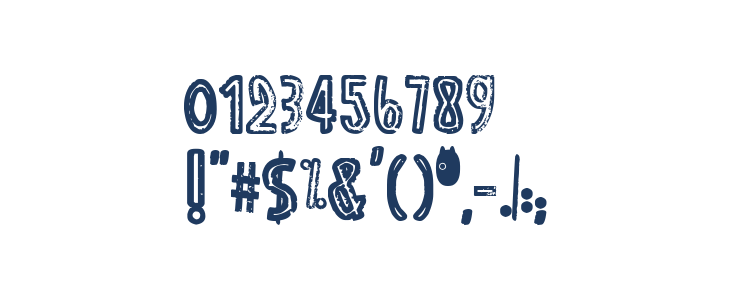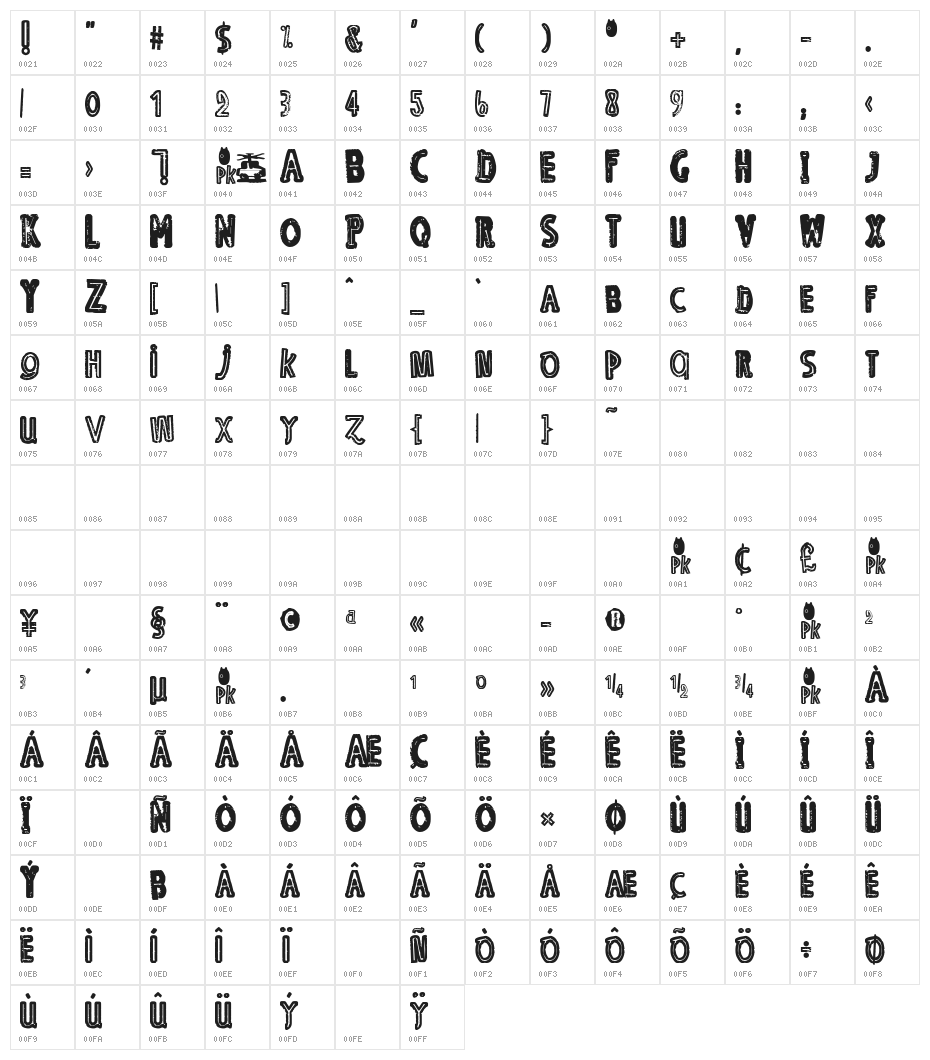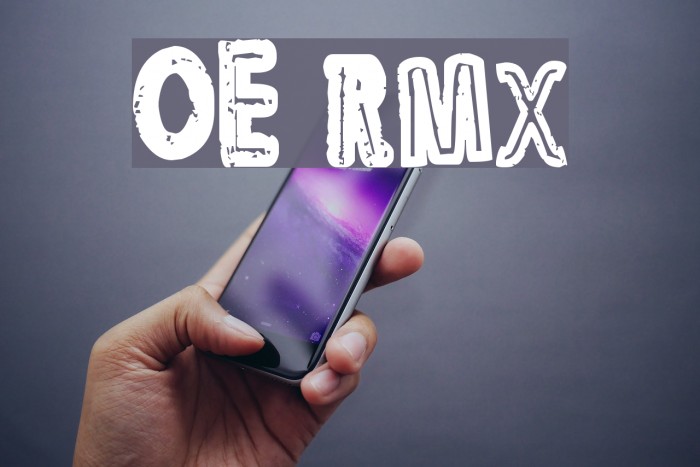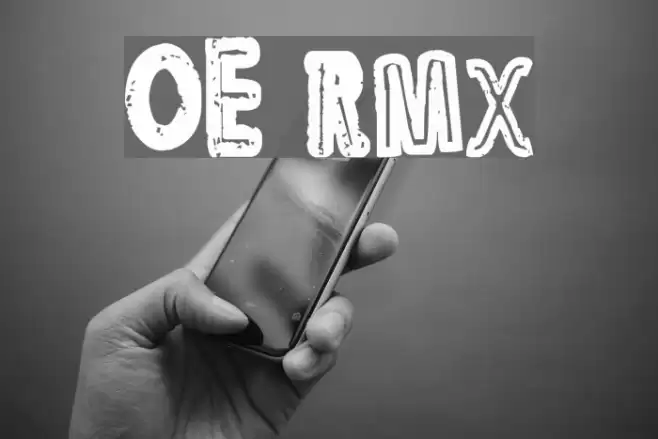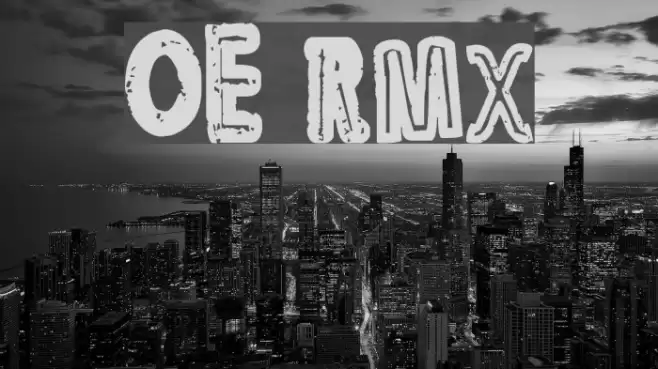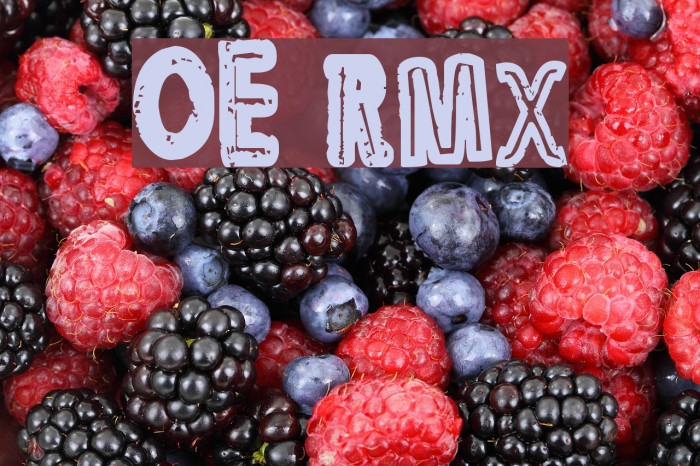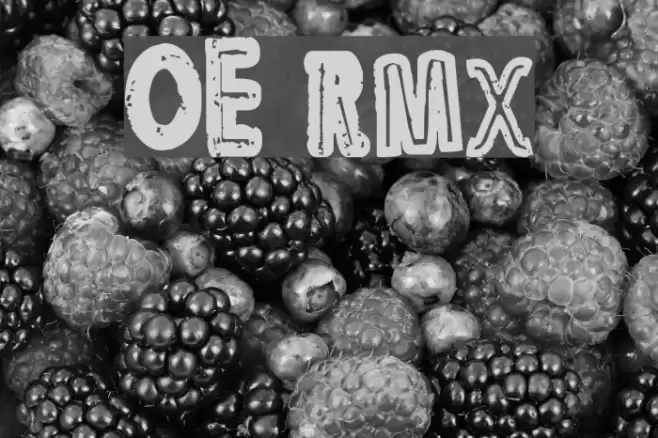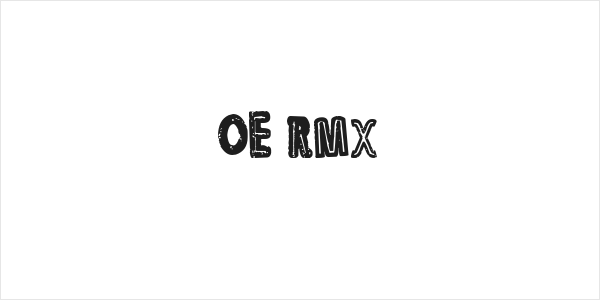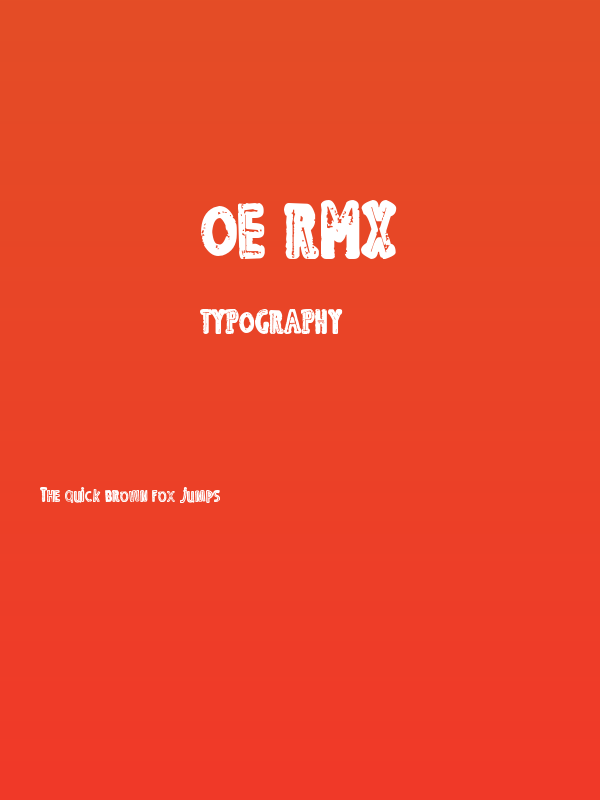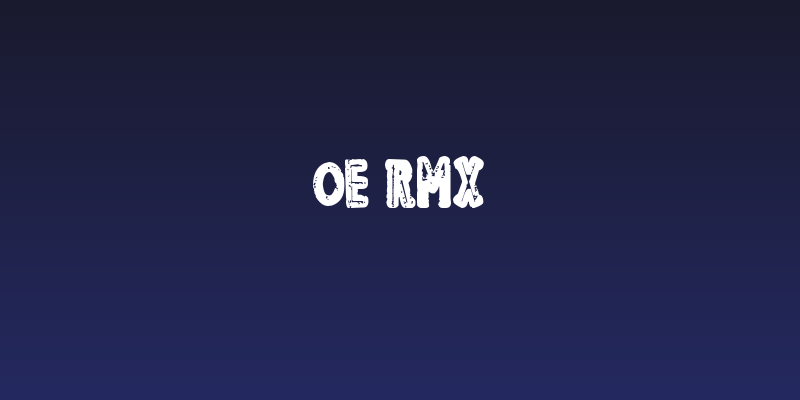
OE rmx Font
OE rmx Description
This font features a bold, distressed style with a rugged, textured appearance. Each character is designed with a rough, worn-out effect, giving it a vintage and grunge aesthetic. The uppercase and lowercase letters maintain a consistent style, with thick strokes and uneven edges that add to its unique charm. The numbers and special characters follow the same design, ensuring a cohesive look across all elements. This font is ideal for projects that require a bold statement with a touch of nostalgia and edge.
| Overall Style | Vintage, Grunge |
| Proposed Projects | Perfect for posters, album covers, branding, and any design needing a bold, vintage touch. |